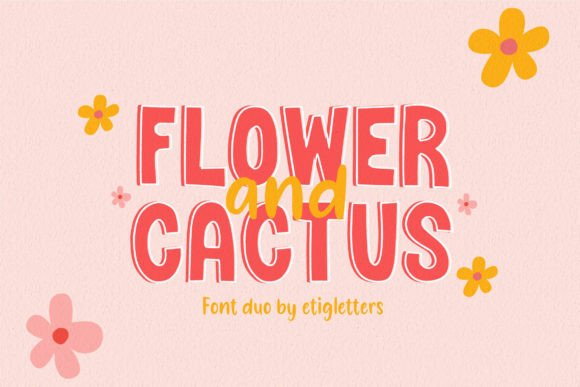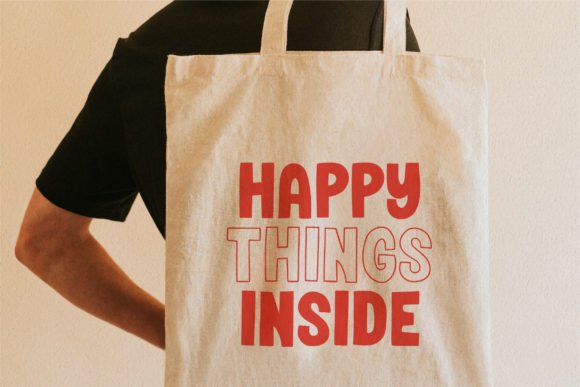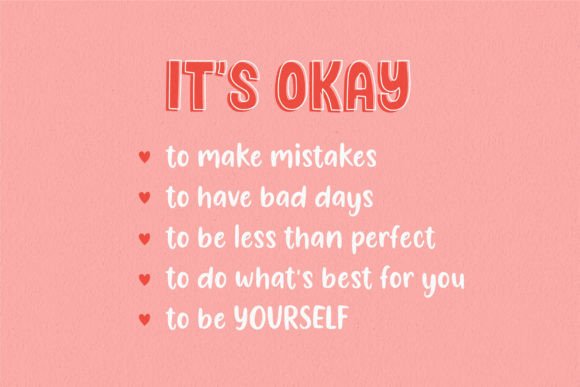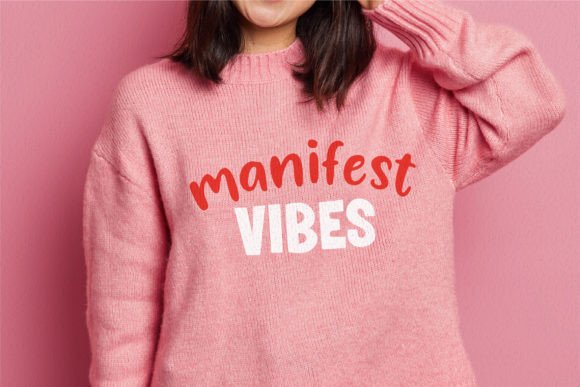
Flower and Cactus Duo Font
About the Flower and Cactus Duo Font
Crafted with precision, the Flower and Cactus Duo Font is ready to bring your ideas to life. Flower and Cactus is a playful and fun sans serif font combo. Flower and Cactus will be perfect for stickers, greeting cards, logos, posters, or anything that requires a fun and happy look!
Its playful energy makes it ideal for projects targeting younger demographics or brands with a fun, approachable image. Think children’s books, social media graphics, and vibrant branding for cafes or ice cream shops. However, its informal nature makes it unsuitable for lengthy text blocks or applications requiring high readability, such as body copy or user interfaces.
Flower and Cactus pairs well with clean sans-serif fonts like Montserrat for a balanced contrast, or a more structured serif like Playfair Display for a touch of elegance. For a more whimsical feel, consider pairing it with a handwritten script font, but choose one with clear legibility to avoid visual clutter. Avoid pairing it with overly geometric or severe fonts; this would clash with its organic, hand-drawn aesthetic.
The overall personality is best described as friendly and approachable, with a hint of quirky charm. Its lighthearted style would not be suitable for projects requiring a sophisticated or formal tone.
Flower and Cactus Duo Font Usage Examples
Flower and Cactus Duo Font Example